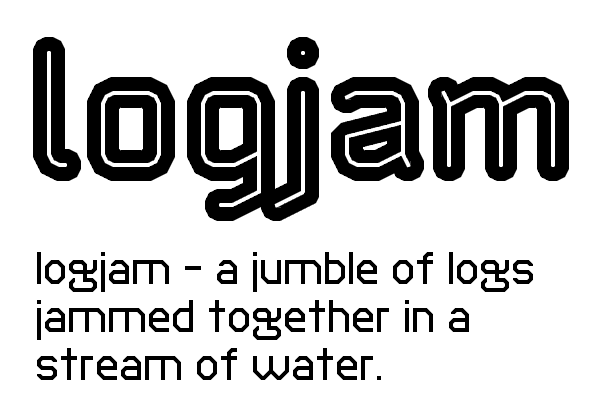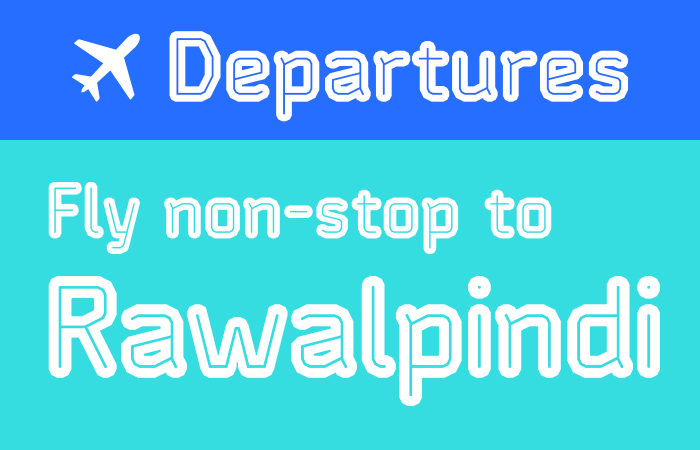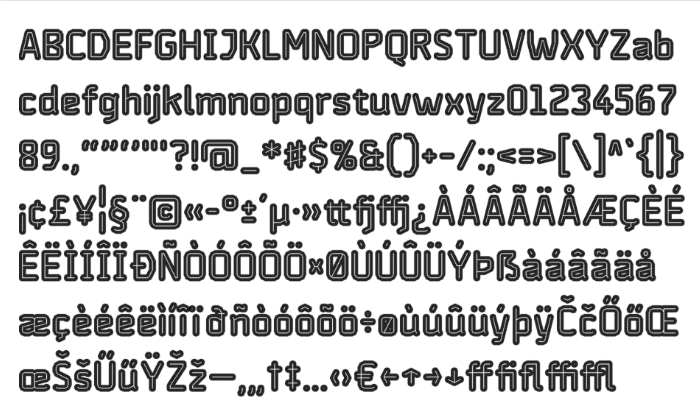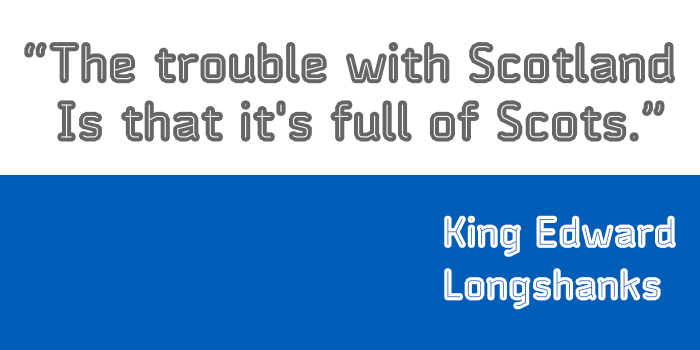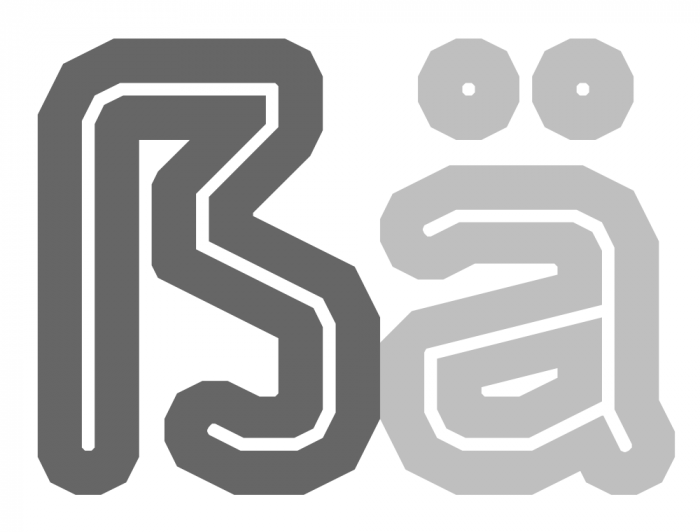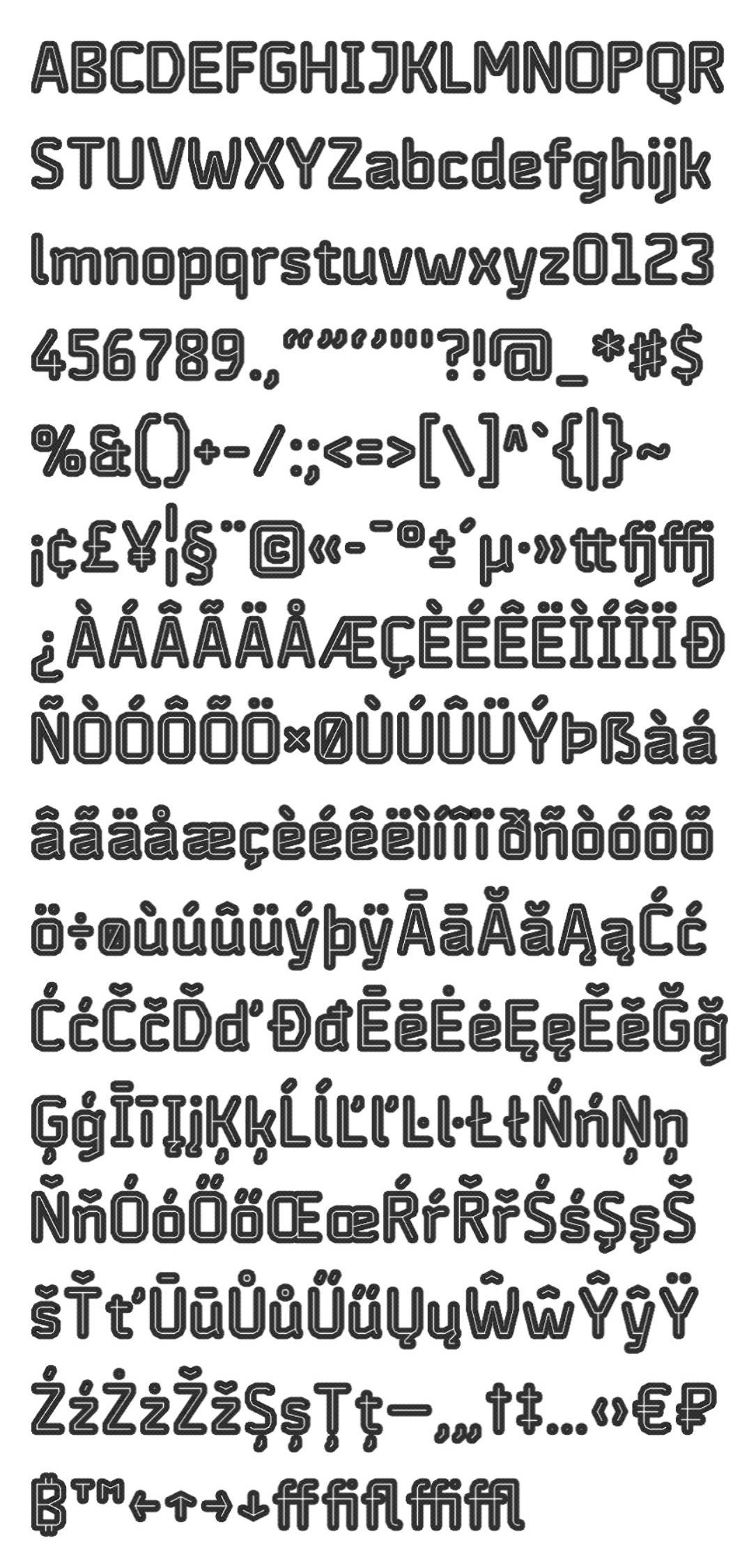
• (Avensis is derived from the French verb 'advancer', meaning 'to advance'.)
This is my latest fontstruction. A modern inline face with a hint of bevels. It took me a whole week to build this font. Tons of bricks, custom bricks, and a bit of nudging here and there. I hope you like it.
This font looks pretty nice, especially at double pixel size in the previewer, although the j colliding with the g, q, and itself might be a minor issue in some languages. I wonder if making the hook of the j go downwards (like the angle on the lower right leg of the lowercase k, but flipped horizontally so it goes to the left instead) would help?
@Bryndan W. Meyerholt (BWM): Thank you for your comment and generous rating. The issue with gj, jj, yj is not a big problem. Open Type features will take care of it (alternate j characters, special ligatures).
Lovely work! I would recommend taking a close look at the uppercase D though, I think there might be a brick or two misplaced.
Wonderful font, delicate and elegant! I've always loved your predilection for attention to detail, Maestro Frodo, and here it's evident in the subtle inktraps and the soft final rounding of the thin white interior spaces, for example. Gorgeous! 10/10. Btw, I'm with @Gr4ftY about the D and some minor details (R, k...).
Avensis is a discontinued Toyota line for me
@Gr4ftY (groan): Thank you for your comment. You have eagle eyes for noticing such a small imperfection. It's been corrected. I think there are possibly more. I'll do a thorough check when all the glyphs are completed.
Beautiful polygonal inline work. The inktraps are effective.
I have upgraded the character set to extended Latin with ligatures and arrows. The following languages are supported: English, French, German, Spanish, Portuguese, Dutch, Icelandic, Faroese, Irish, Danish, Swedish, Norwegian, Finnish, Hungarian, Slovene, Estonian, Albanian, and Afrikaans.
Great upgrade, btw!
WOW! I haven't seen much fonts with the arrows!
New upgrade. The following glyphs were modified or completely redesigned: small z, ð, <, >, ×, comma, quotation marks, and diacritical marks (acute, grave, tilde). Language support has been extended to cover Catalan, Polish, Czech, Slovak, Croatian, Romanian, Latvian, Lithuanian, and Turkish. Together with the previous upgrade, now all European countries are supported.
Proper Polish diacritics with kreska for the ć, ń, ó, ś, and ź. These letters were temporarily placed in the Extended Latin-A series.
Bitcoin and Ruble sign.